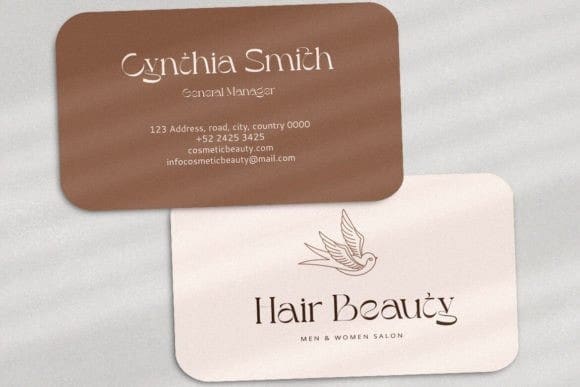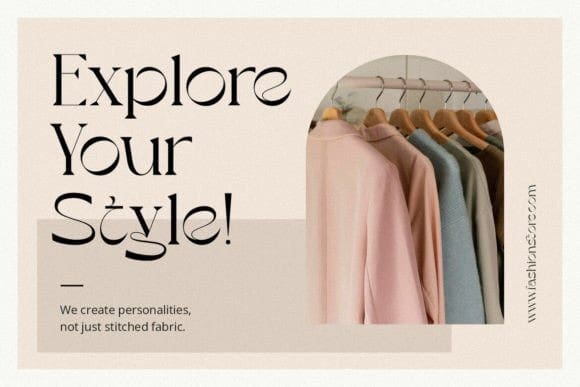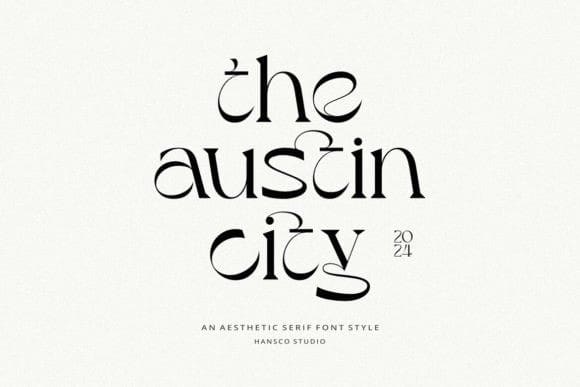
Austin City Font
Austin City Font, a stylish serif font, captivates with its unique design, blending modern aesthetics with timeless sophistication. The distinctive serifs and graceful letterforms exude a sense of refinement, making it an ideal choice for projects that demand a touch of sophistication and contemporary elegance.